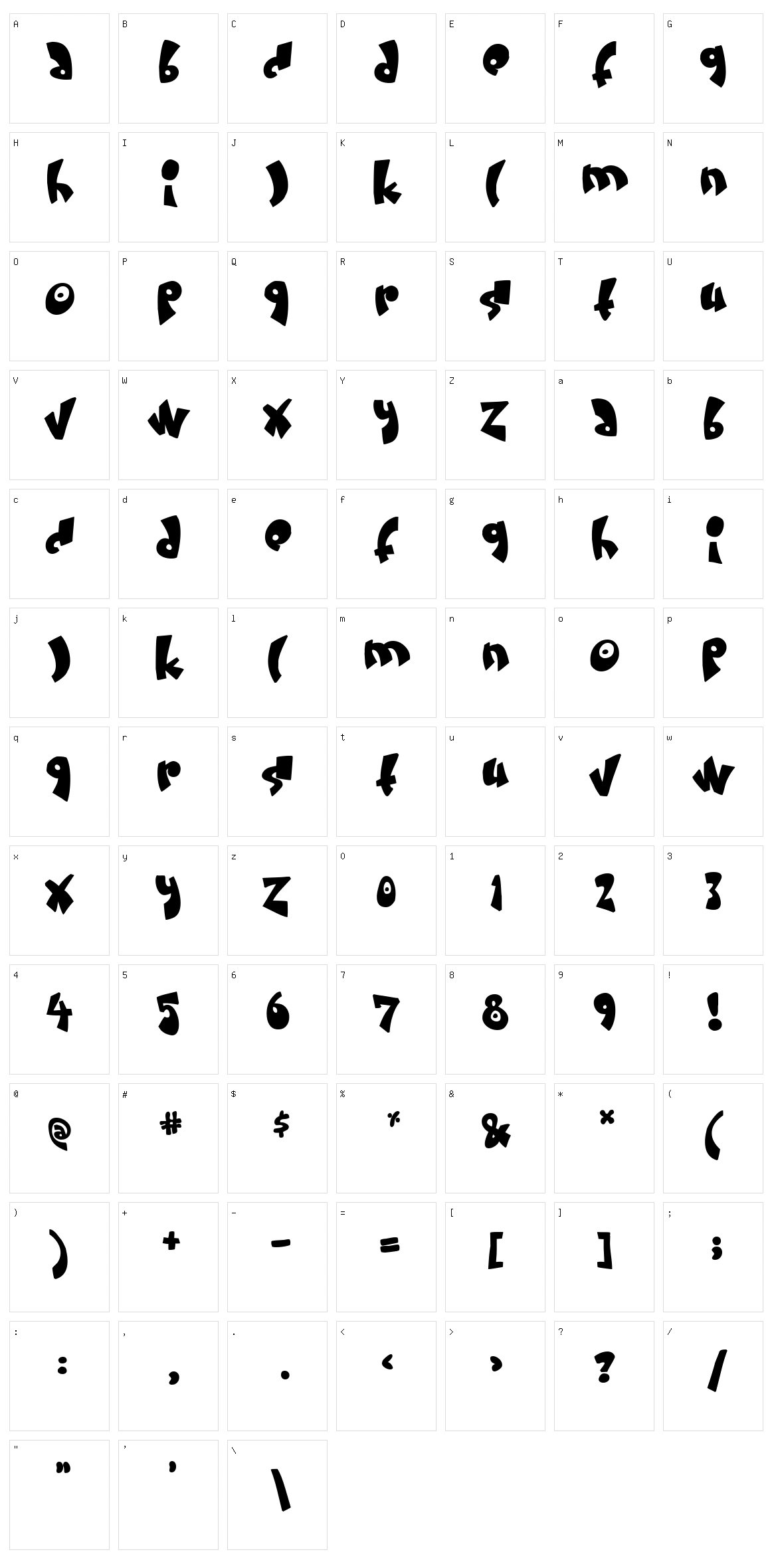
The free font Cream and sugar is carefully designed by Pizzadude, showcasing a thoughtful balance of creativity and usability and falls under the Cartoon font style. When you download the ZIP file, it contains only 10.6 KB of font files, making it lightweight and quick to download. Please review the license details below to understand permitted usage and distribution rights. If license information is not available, we recommend using this font for personal projects only or contacting the author directly for commercial usage permissions.